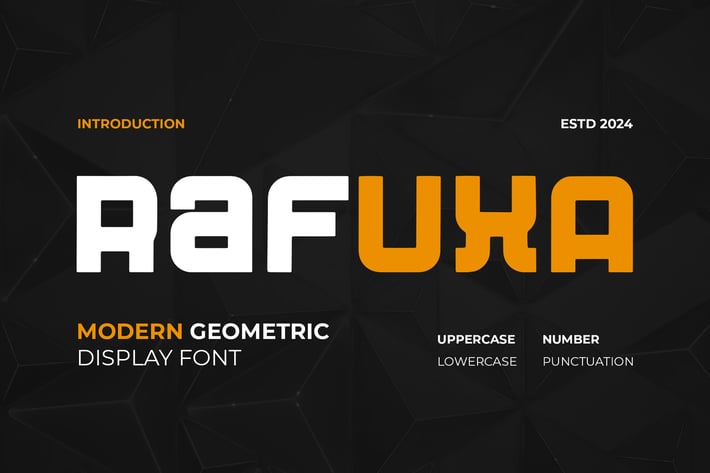
Rafuxa - A Modern Geometric Font
Rafuxa Marker a unique display typeface perfect for titles, large text, branding, logotypes & graphic design purposes such as posters, pamphlets, and advertisements. This letter font can be a great choice for creating amazing logos, promotional content, and marketing presentations that can bring uniqueness and freshness at its best.